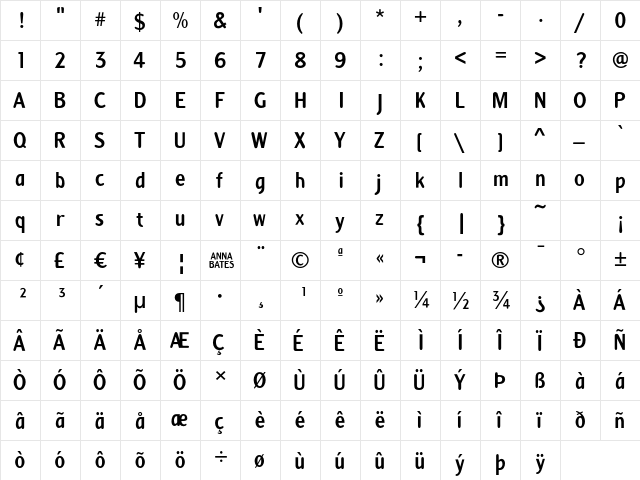
Anna Regular
Design Context for Anna Typeface
Anna offers clean, dependable letterforms without strong stylistic allegiance, making it a practical choice for designers who need flexibility.
Pro Tip: Pair Anna with a font of contrasting weight or personality to build a more expressive typographic hierarchy.